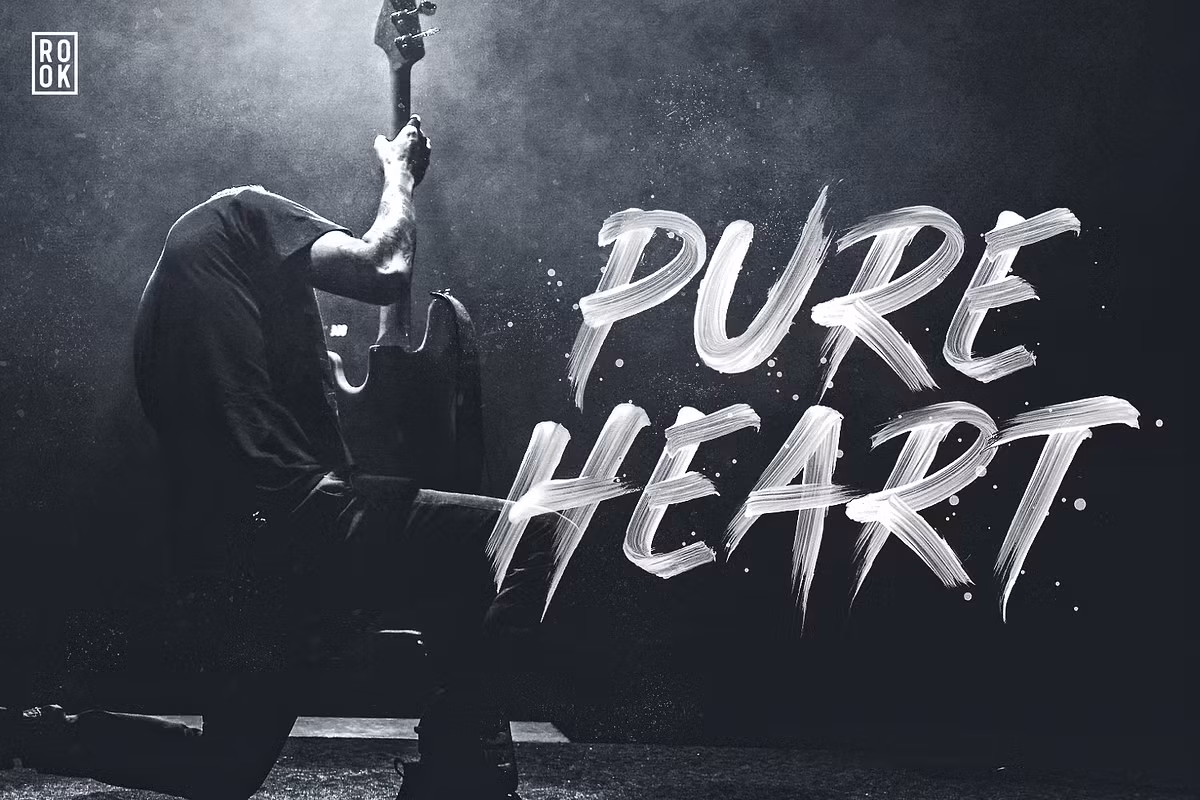
Pure Heart - OpenType SVG Brush Font Free Download is a vibrant and artistic brush script typeface that adds a hand-painted feel to your designs. With its expressive strokes and unique texture, this font is perfect for logos, invitations, posters, and any project that needs an authentic, creative touch. The OpenType SVG format ensures the brush details are preserved, giving your work a real, handcrafted look.